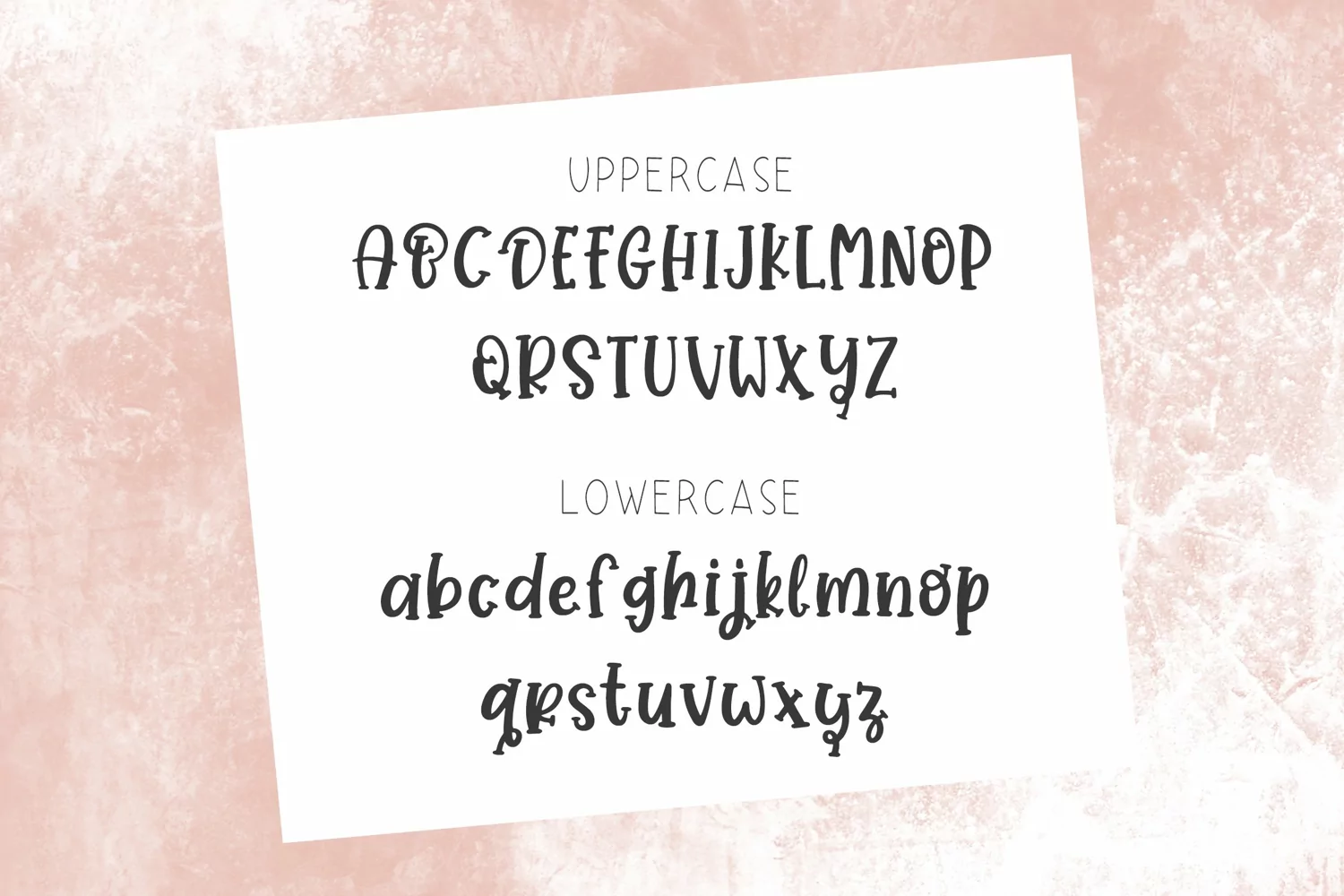
Bumbee is a fun font with lots of alternative glyphs. Sweet and playful, this typeface can elevate the look of any creation ranging from product packaging to business cards, and more!
Bumbee